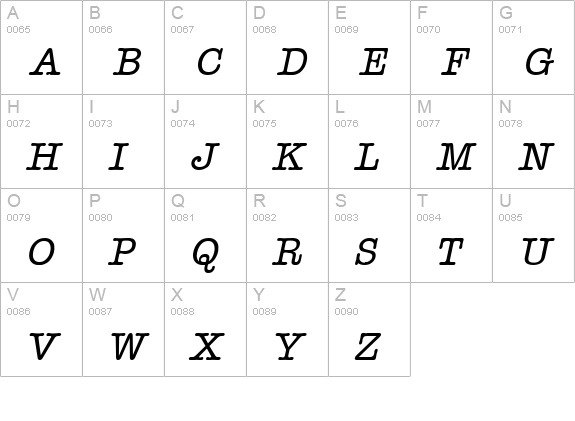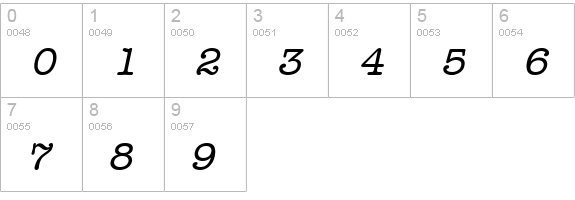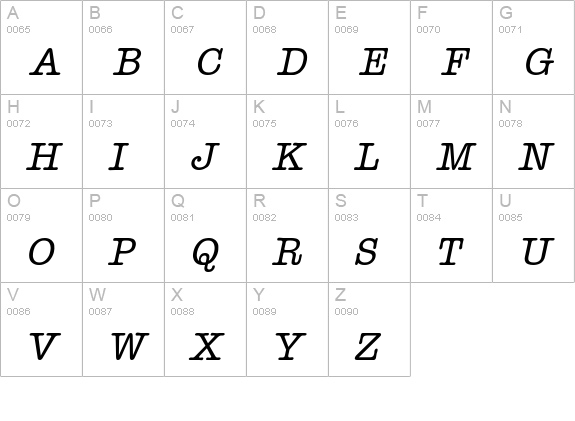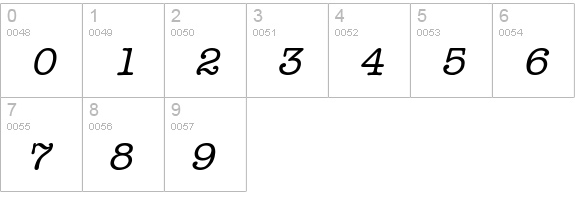
Headline Italic is a distinctive, italic variant in the Headline typeface family \xE2\x80\x94 well suited to design and typography projects.
Introducing Headline Italic font, a stunning and versatile typeface that is perfect for captivating headlines, bold titles, and eye-catching designs. This font stands out with its sleek and modern italic style, adding a touch of elegance and sophistication to any project. Headline Italic offers a wide range of possibilities for designers, creatives, and typographers to create impactful visual content. Whether you're working on a magazine layout, website design, branding project, or advertising campaign, this font will effortlessly elevate your work to new heights. Not only does Headline Italic boast an impressive aesthetic appeal, but it also excels in readability and legibility. Its clean and clear letterforms ensure that your message is communicated effectively, even in larger sizes or when used in unconventional layouts. What sets Headline Italic apart is that it is available for free! Yes, you read that right. This exceptional font can be freely downloaded from FontsMarket.com, a reputable online platform for high-quality fonts. With just a few clicks, you can add Headline Italic to your font collection and start exploring its endless creative possibilities. So why wait? Embrace the power and elegance of Headline Italic font today and watch your designs come to life. Download it now from FontsMarket.com and let your creativity soar.